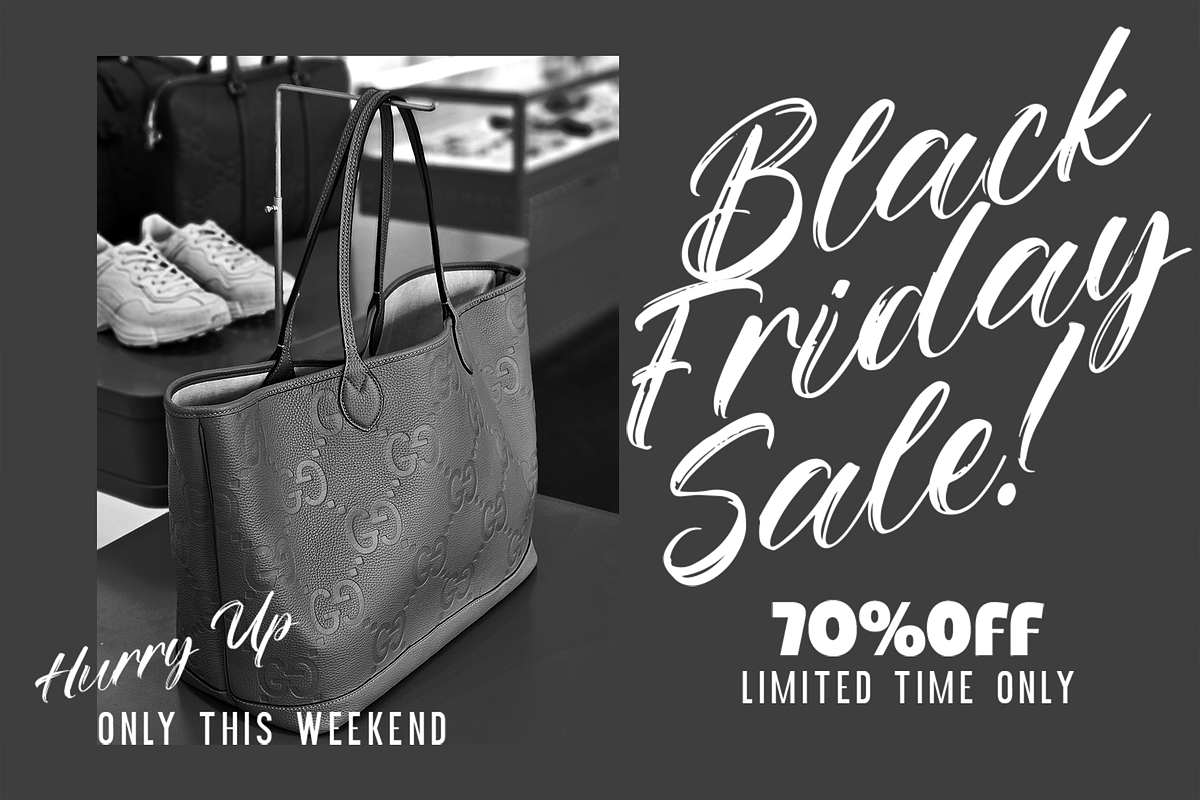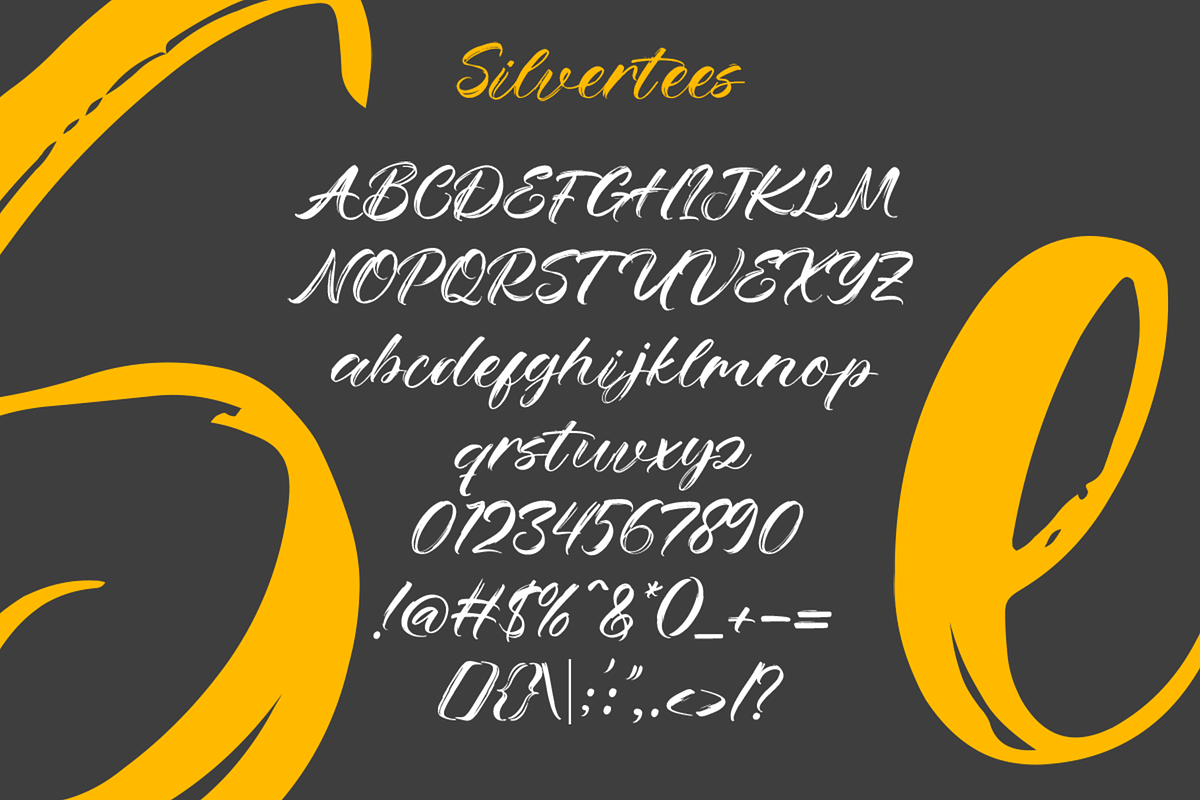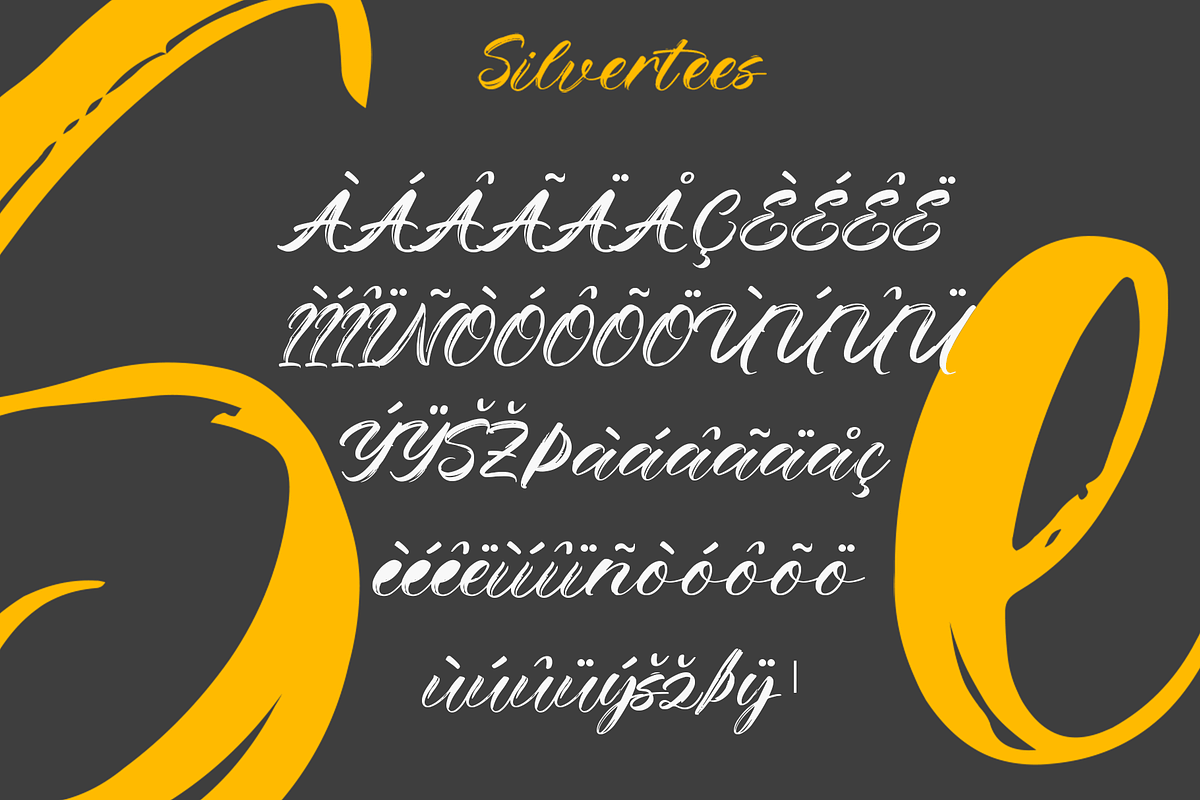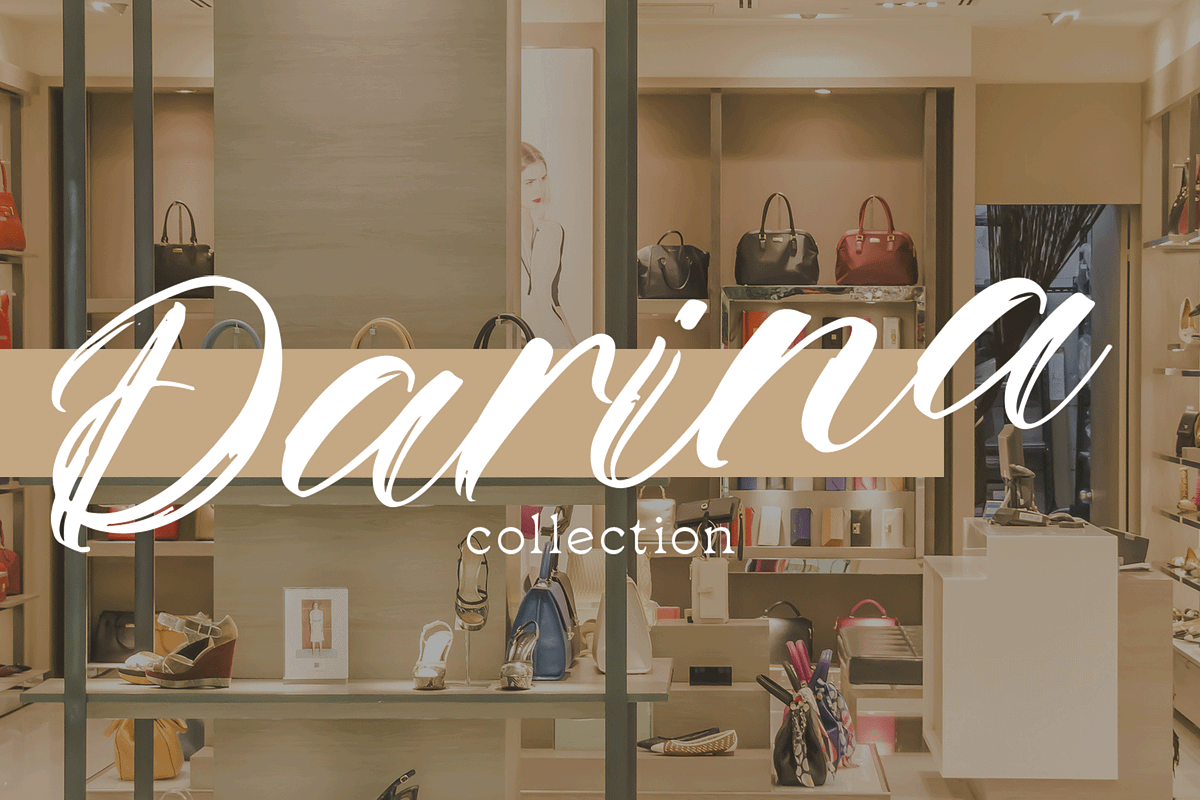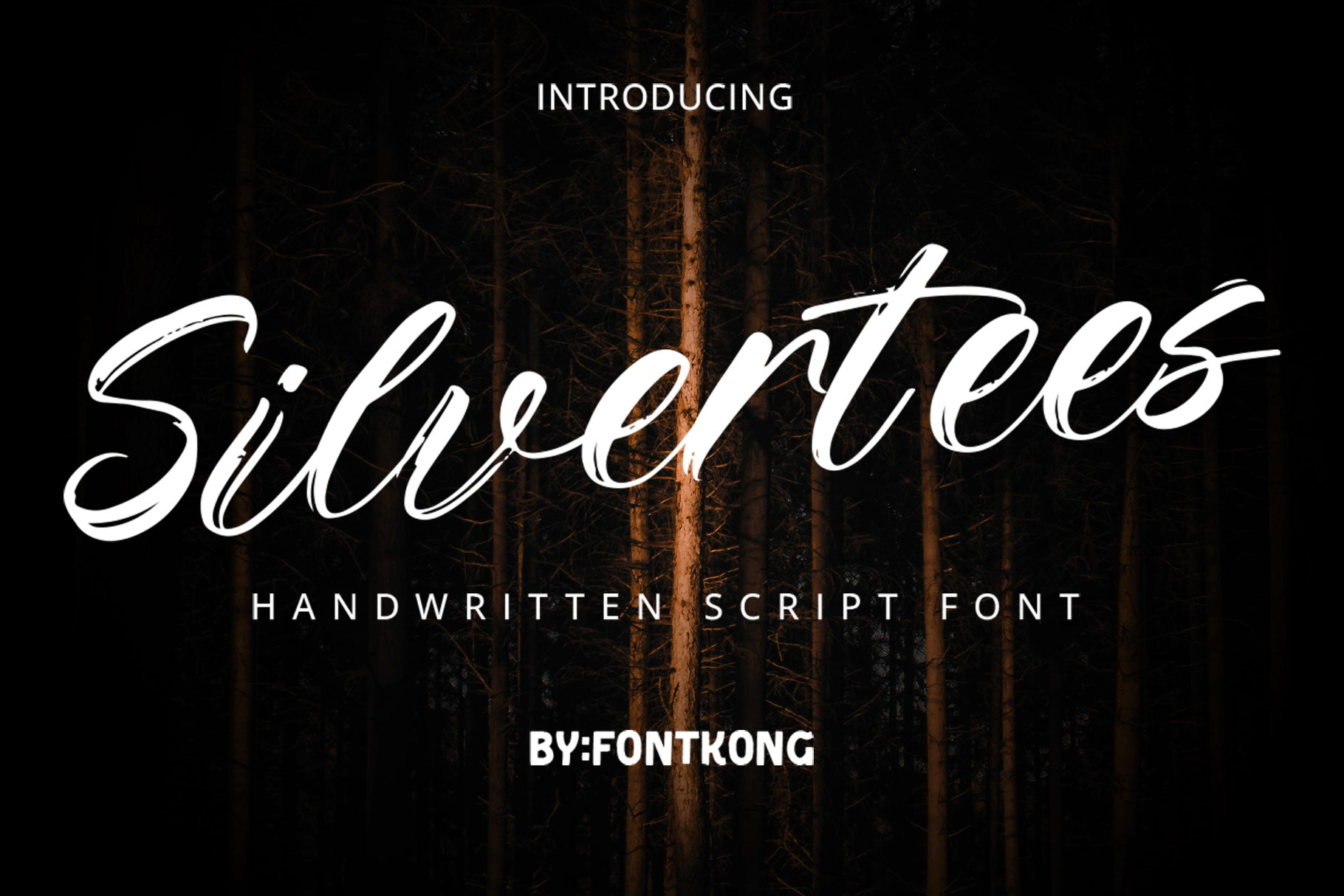
Silvertees – Handwritten Script Font
Silvertees is a handwritten script font that brings a touch of elegance, charm, and authenticity to your creative work. Crafted with flowing strokes and natural curves, this font is perfect for designs that require a personal and stylish touch.
Whether you're designing wedding invitations, branding for boutique businesses, social media graphics, or handwritten quotes, Silvertees delivers a refined yet approachable look. Its smooth lines and graceful movement make it easy to read while retaining a hand-crafted feel.
Featuring uppercase and lowercase letters, punctuation, numerals, and multilingual support, Silvertees is a versatile script font that effortlessly blends sophistication with personality.